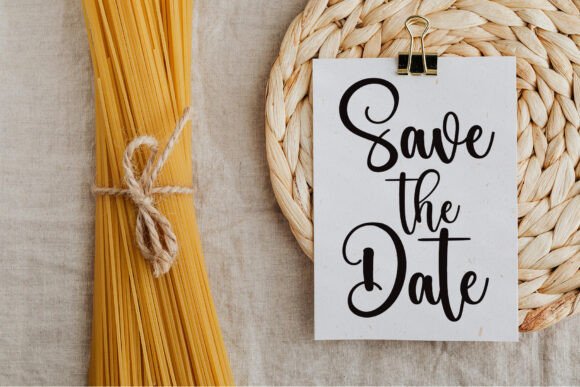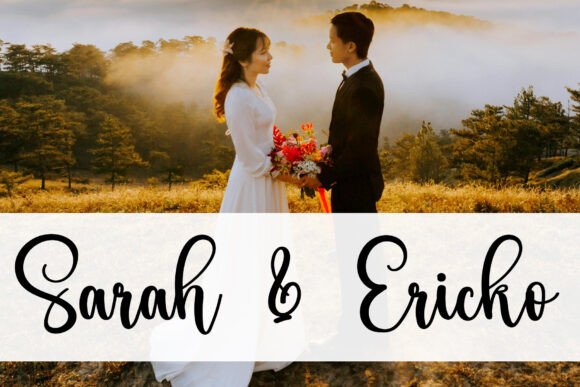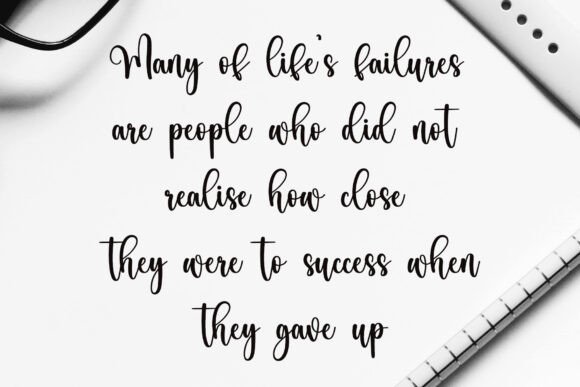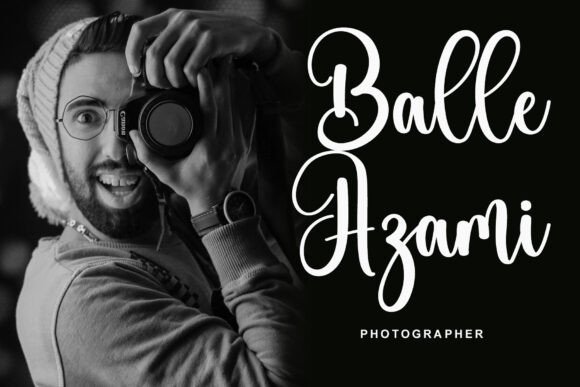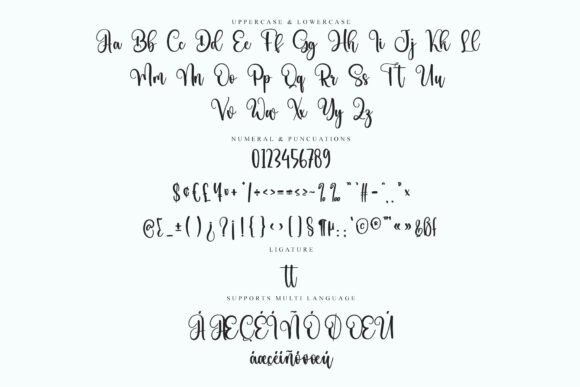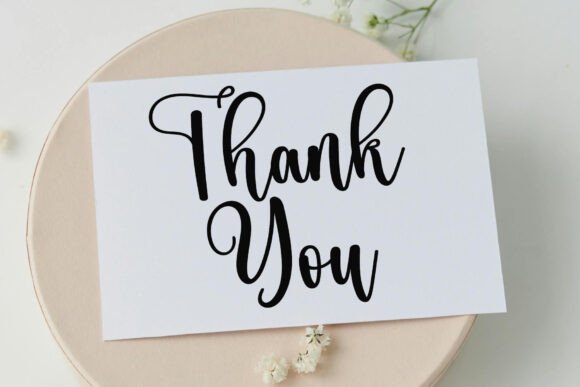
Introducing Handyman Font: Elevate Your Designs with Timeless Elegance
In the world of typography, a well-crafted font can make all the difference in elevating your design projects from ordinary to extraordinary. For designers and crafters seeking a stylish and contemporary handwritten font, look no further than Handyman Font. Inspired by the timeless beauty of classic calligraphy, Handyman Font brings a touch of sophistication and elegance to any project.
The Inspiration Behind Handyman Font
Handyman Font is a masterful blend of traditional calligraphy and modern design sensibilities. Its creator drew inspiration from the classic scripts of the past, carefully refining and updating the letterforms to create a font that is both nostalgic and forward-thinking. The result is a stylish handwritten font that exudes a sense of refinement and poise.
Key Features of Handyman Font
So, what sets Handyman Font apart from other fonts in its category? Here are a few key features that make it an exceptional choice for designers and crafters:
- Contemporary Atmosphere: Handyman Font boasts a fresh and modern aesthetic that is perfect for designers looking to add a touch of sophistication to their projects.
- Impeccable Form: Each letterform in Handyman Font has been carefully crafted to ensure impeccable form and balance, making it a joy to work with.
- Balanced and Varied: The font features a range of characters and ligatures, allowing for a high degree of variation and creativity in your designs.
Why Choose Handyman Font for Your Projects?
Whether you’re a designer, crafter, or DIY enthusiast, Handyman Font offers a wide range of benefits that make it an excellent choice for your projects. Here are just a few reasons why:
- Elegance and Sophistication: Handyman Font adds a touch of elegance and sophistication to any project, making it perfect for high-end designs, branding, and marketing materials.
- Versatility: The font’s balanced and varied design makes it suitable for a wide range of applications, from digital designs to print materials.
- Easy to Read: Handyman Font is designed to be easy to read, even at small sizes, making it perfect for body text and captions.
Using Handyman Font in Your Designs
So, how can you incorporate Handyman Font into your designs? Here are a few ideas to get you started:
- Branding and Logos: Use Handyman Font to create elegant and sophisticated branding and logos that will help your business stand out.
- Digital Designs: Add a touch of elegance to your digital designs, including social media graphics, email headers, and website text.
- Print Materials: Use Handyman Font in your print materials, such as brochures, flyers, and business cards, to add a touch of sophistication and refinement.
In conclusion, Handyman Font is a stylish and elegant handwritten font that is perfect for designers and crafters looking to add a touch of sophistication to their projects. With its impeccable form, balanced and varied design, and contemporary atmosphere, Handyman Font is an excellent choice for a wide range of applications. Whether you’re looking to create elegant branding and logos, digital designs, or print materials, Handyman Font is sure to become a go-to font in your collection.